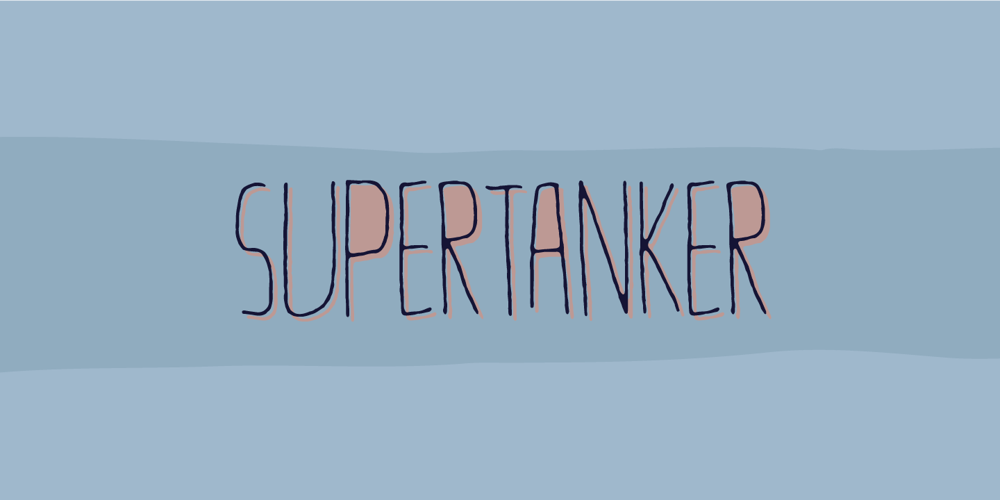
Supertanker
Supertanker font
Supertanker Font Family was designed by Jakob Fischer and published by Bogstav. Supertanker contains 2 styles and family package options. Here’s my tall and thin sans handmade font! It’s lively, rough and quite organic looking – and to boost the natural organic look, I have added 6 different versions of each letter!